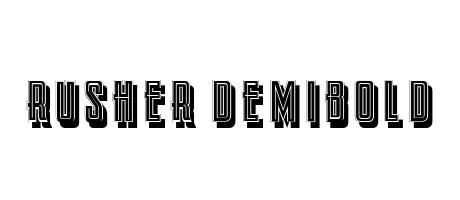
Rusher
Rusher DemiBold: A bold, sans-serif typeface with a distinct geometric feel. Its strong, slightly condensed letterforms possess a layered, almost embossed quality, adding depth and a touch of retro-futuristic style. The thick strokes convey power and a confident presence. Perfectly suited for headlines and impactful branding.
Vladimir Nikolic